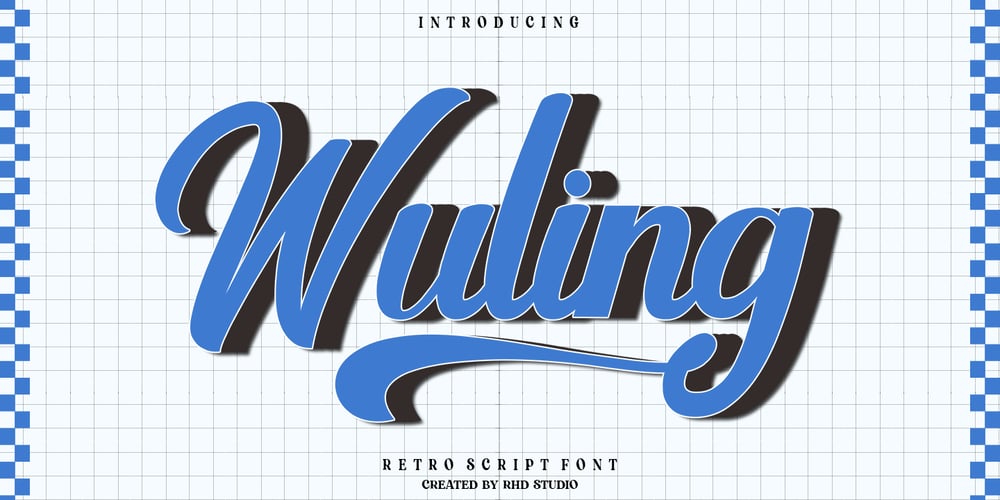
Wuling Retro Font Family was designed by Rahmad Rizky and published by Rhd Studio. Wuling Retro contains 1 styles and family package options. Introducing the new Wuling Curve Typeface that is a carefully crafted and balanced script typeface with personality. You can use it as a logo, badge, emblem, packaging, title, poster, t-shirt/clothing, greeting card and wedding invitation.Flowing characters are ideal for creating engaging messages. Mix and match the Wuling Typeface with a set of alternative characters to suit your project.The alternative characters in this font are divided into several OpenType features such as Stylistic Alternates, Stylistic Sets, and Ligature. OpenType features can be accessed using OpenType programs such as Adobe Illustrator, Adobe Photoshop, and Adobe InDesign.There he is! I really hope you enjoy it – please let me know what you think. More importantly, feel free to message me if you have any problems or questions.Thank You!